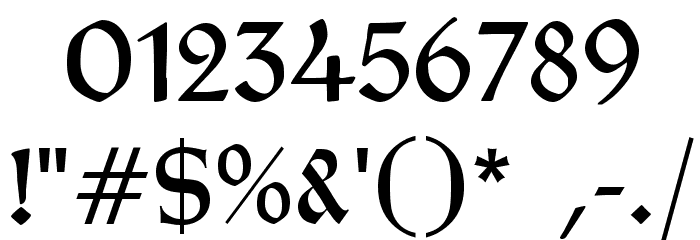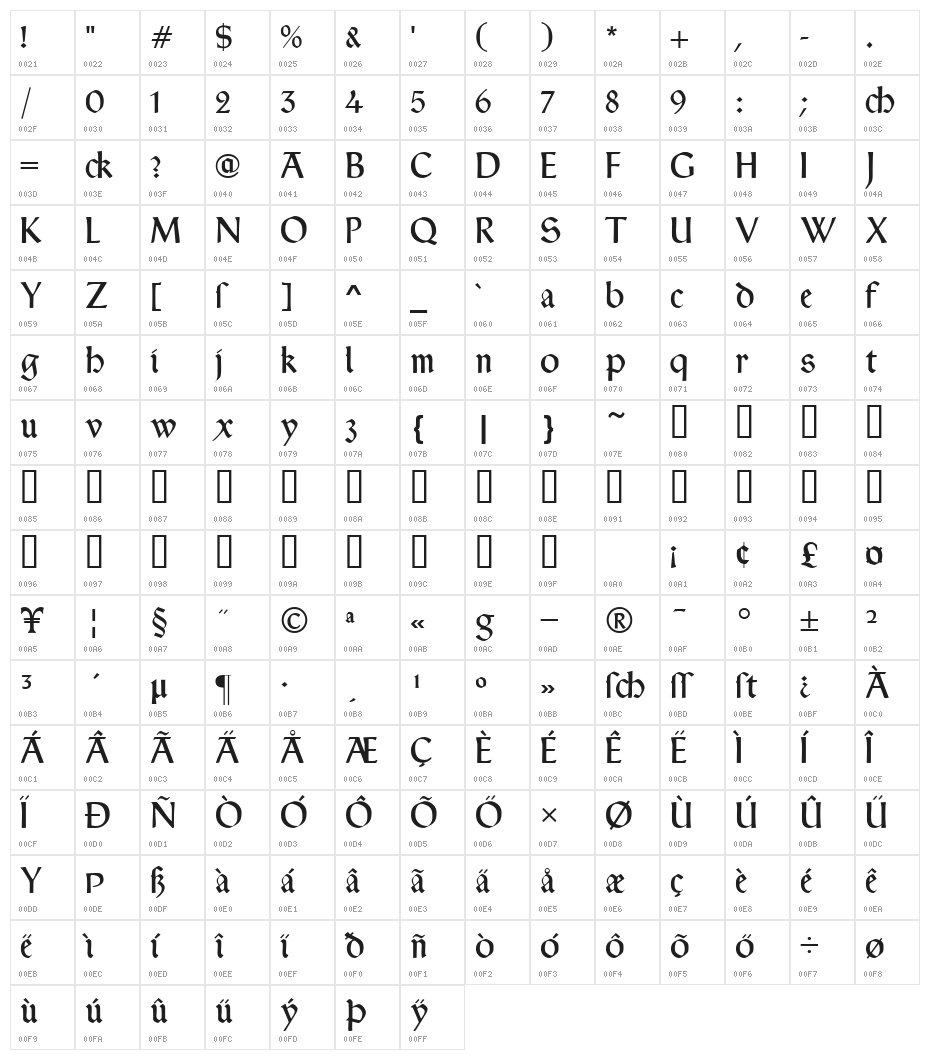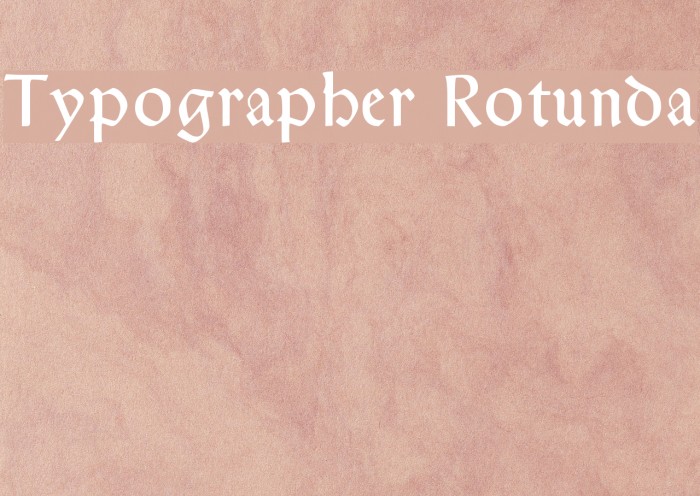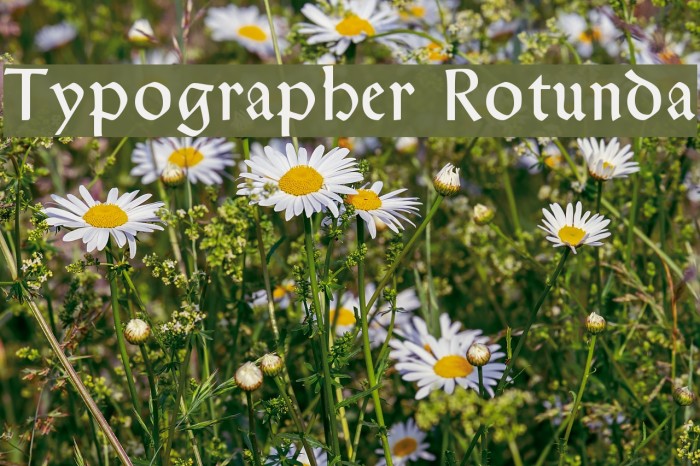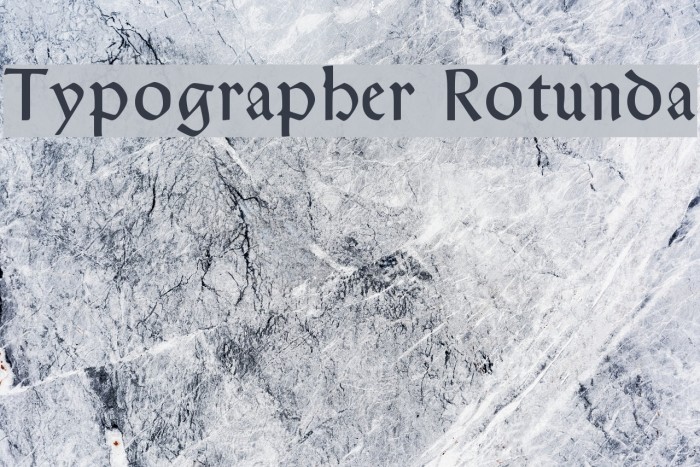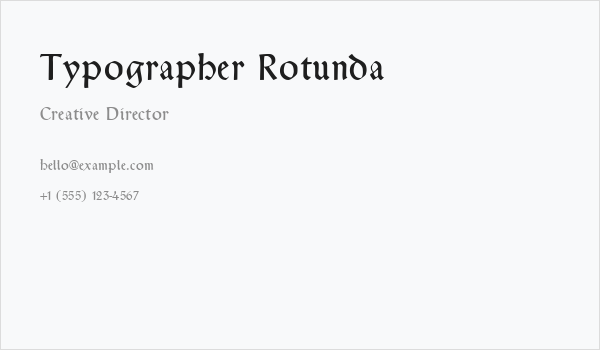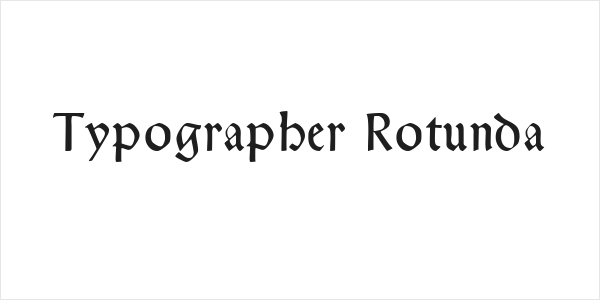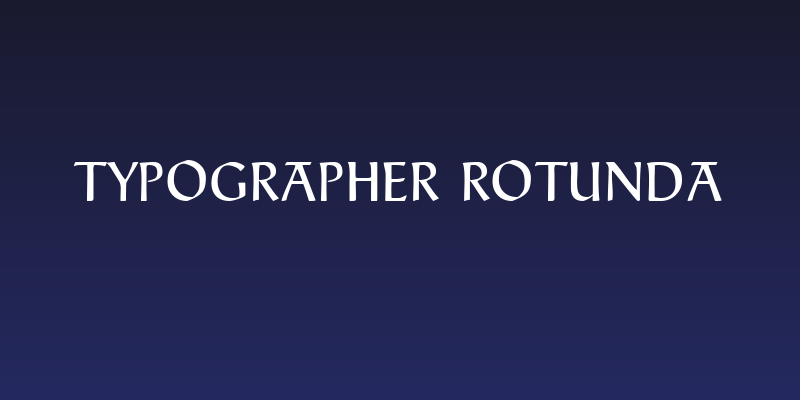
Typographer Rotunda Font
Typographer Rotunda Description
This font exhibits a classic blackletter style, characterized by its sharp, angular lines and dramatic contrast between thick and thin strokes. The uppercase letters are bold and commanding, with a medieval flair that is both decorative and formal. The lowercase letters maintain the same angularity, offering a cohesive look throughout the typeface. Numbers and special characters are designed to match the overall aesthetic, providing a consistent and unified appearance. This font is ideal for projects that require a historical or traditional touch, such as invitations, certificates, or branding that seeks to convey a sense of heritage and authenticity.
Overall StyleClassic
Use CaseHeadlines, Decorative text
Proposed ProjectsIdeal for invitations, certificates, branding, and any project requiring a historical or traditional aesthetic.